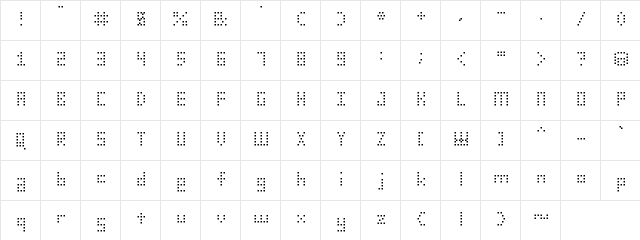
SMdot12 Font Preview
SMdot12 SMdot12
SMdot12 Font Details
| Designer | Kim June Young |
Design Context for SMdot12 Typeface
SMdot12 celebrates the constraints of early digital type, turning pixel geometry into a distinctive and immediately recognisable style.
A natural choice for retro game titles, chiptune music branding, 8-bit UI, and digital nostalgia projects.